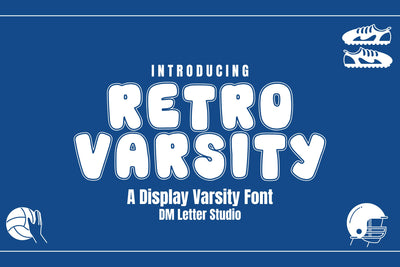
Retro Varsity
Retro Varsity – A Bold & Nostalgic Display Font
Retro Varsity is a bold and stylish typeface that blends classic collegiate lettering with a retro flair. Perfect for vintage-inspired designs, school-themed projects, team branding, and statement headlines, this font captures the essence of old-school charm with a fresh twist. Its strong, clean lines and nostalgic personality make it a standout choice for both playful and professional projects.
Vintage Collegiate Style – Inspired by classic varsity lettering with a retro upgrade.
Great for Bold Statements – Ideal for posters, logos, merchandise, and team graphics.
Strong Display Appeal – Eye-catching, stacked letterforms made to stand out.